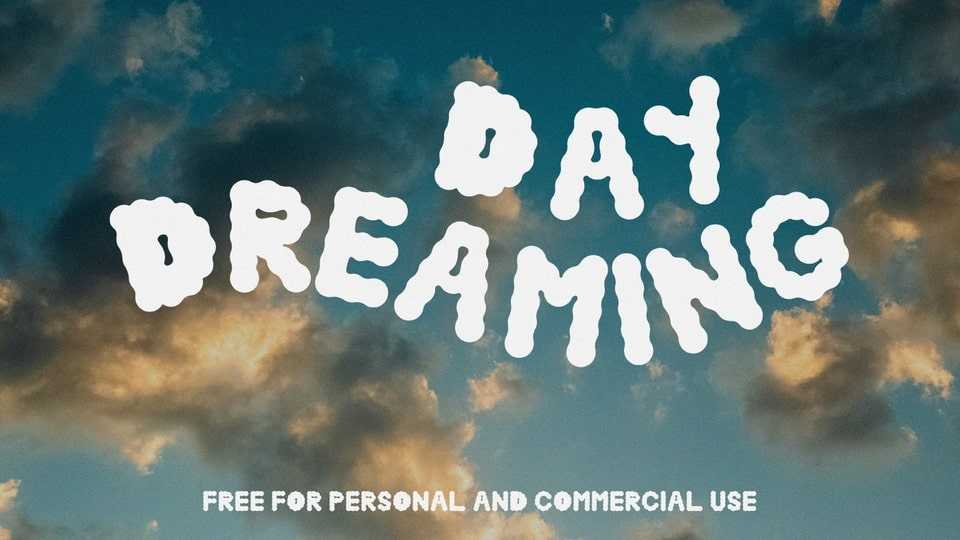
Download Daydreaming font, a display font typeface that feels like clouds. It’s great for designs with headlines, fun, playfulness, promotions, and children’s themes.
Designer: Teona Maisuradze